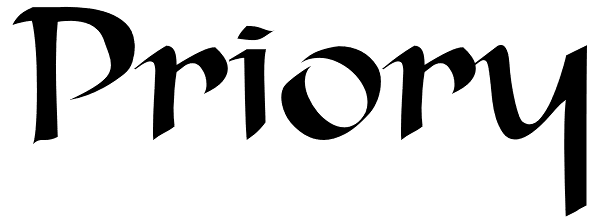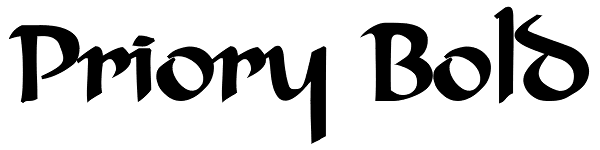
Priory
The Priory is a modern face with the feel of a earlier unical style, which lends itself to any work requiring a celtic or Irish feel. If a more authentic look is required I would recommend that you look at our Bede & Baterd faces; or for a free flow...